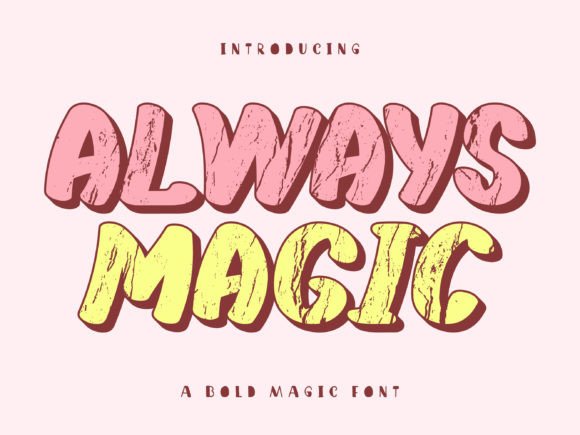
The Magic of Always Magic Font: A Designer’s Best Friend
I still remember the time I was working on a party invitation project for a client’s birthday bash. I had the design concept all sorted out, but I was stuck on finding the perfect font to give it that retro vibe. The client wanted something playful, stylish, and nostalgic, but I just couldn’t seem to find the right fit. That’s when I stumbled upon Always Magic Font, and let me tell you, it was like magic! ✨
A Versatile and Stylish Addition to Your Design Toolkit
Always Magic is a versatile, stylish, and playful retro display font that’s perfect for adding a touch of nostalgia and charm to your designs. With its retro-inspired aesthetic, this font has the potential to bring each of your creative ideas to the highest level! Whether you’re creating party invitations, decorations, or any other design project, Always Magic Font is sure to impress.
My Honest Review: The Good and the Not-So-Good
I’ve had the chance to work with Always Magic Font on several projects, and here’s my honest review:
- ✨ Retro charm: Always Magic Font has that perfect blend of nostalgia and playfulness that’s hard to find in modern fonts.
- ✅ Versatility: This font can be used for a wide range of design projects, from party invitations to decorations and more.
- 💫 Easy to read: Despite its retro aesthetic, Always Magic Font is surprisingly easy to read, even at smaller sizes.
While Always Magic Font is an amazing addition to any design toolkit, there are a few things to keep in mind:
- 🤔 Limited use cases for body text: Due to its display font nature, Always Magic Font might not be the best choice for longer blocks of body text.
- ⚠️ Some glyphs may require manual adjustment: As with any font, you might need to manually adjust some glyphs to ensure they fit perfectly in your design.
The Story Behind Always Magic Font
While the true story behind Always Magic Font remains a mystery, it’s clear that the designer had a passion for retro aesthetics and a desire to create a font that would bring a touch of magic to designs. Whether you’re a designer, crafter, or creative hobbyist, Always Magic Font is sure to inspire your creativity and take your designs to new heights.
Q: Is Always Magic Font easy to read?
A: Yes, Always Magic Font is surprisingly easy to read, even at smaller sizes, making it perfect for designs that require a touch of personality and whimsy.